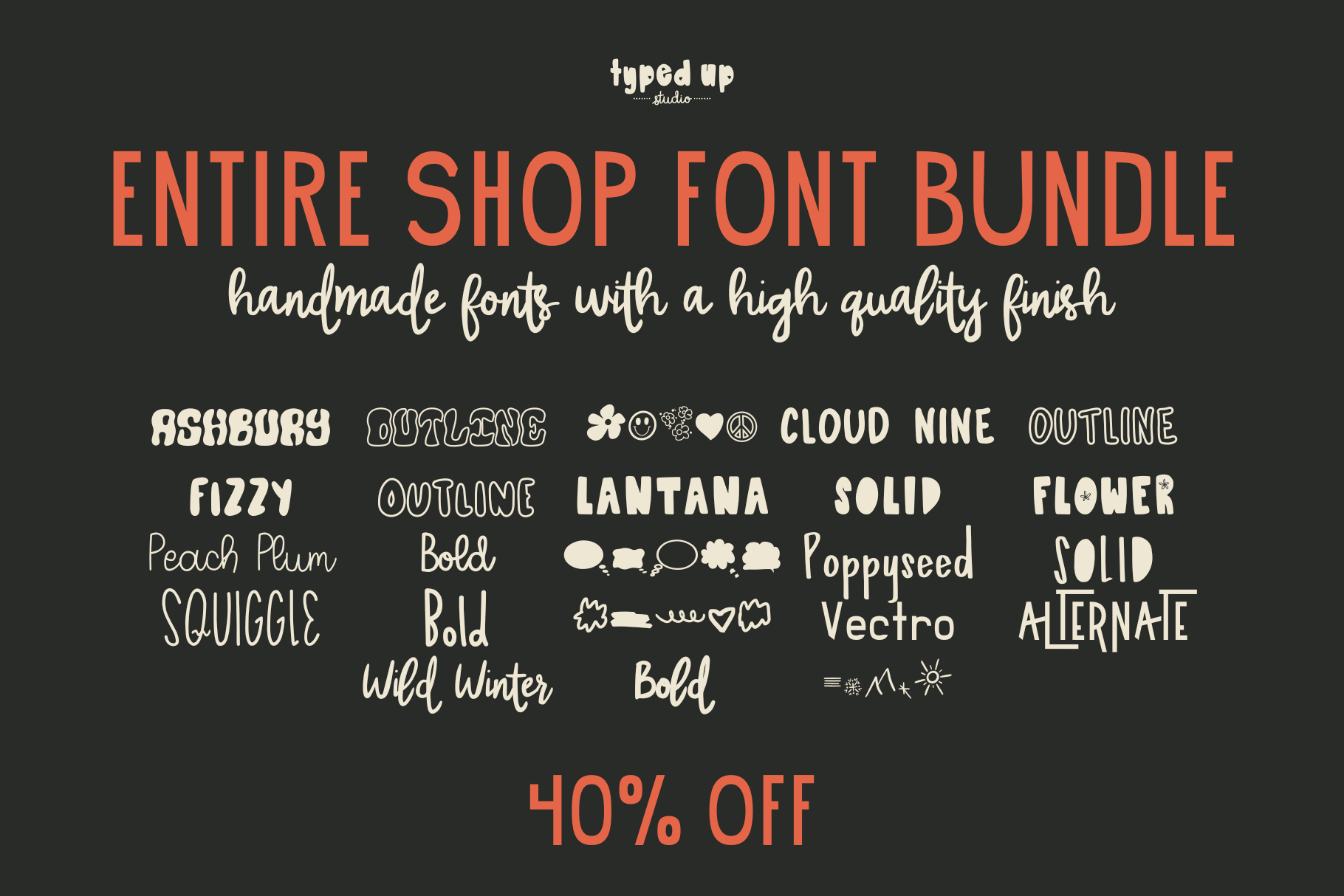
Font Bundle | Handwritten Fonts
Get every font we've made in this giant bundle! Each font in the bundle includes uppercase, lowercase, numbers, & punctuation, some contain alternates or a doodle font. Mix and match them for added fun! Our fonts feature language support for European, South American, and Oceanic languages - please test your characters in the type testing tool to make sure the characters you need are included before purchasing!